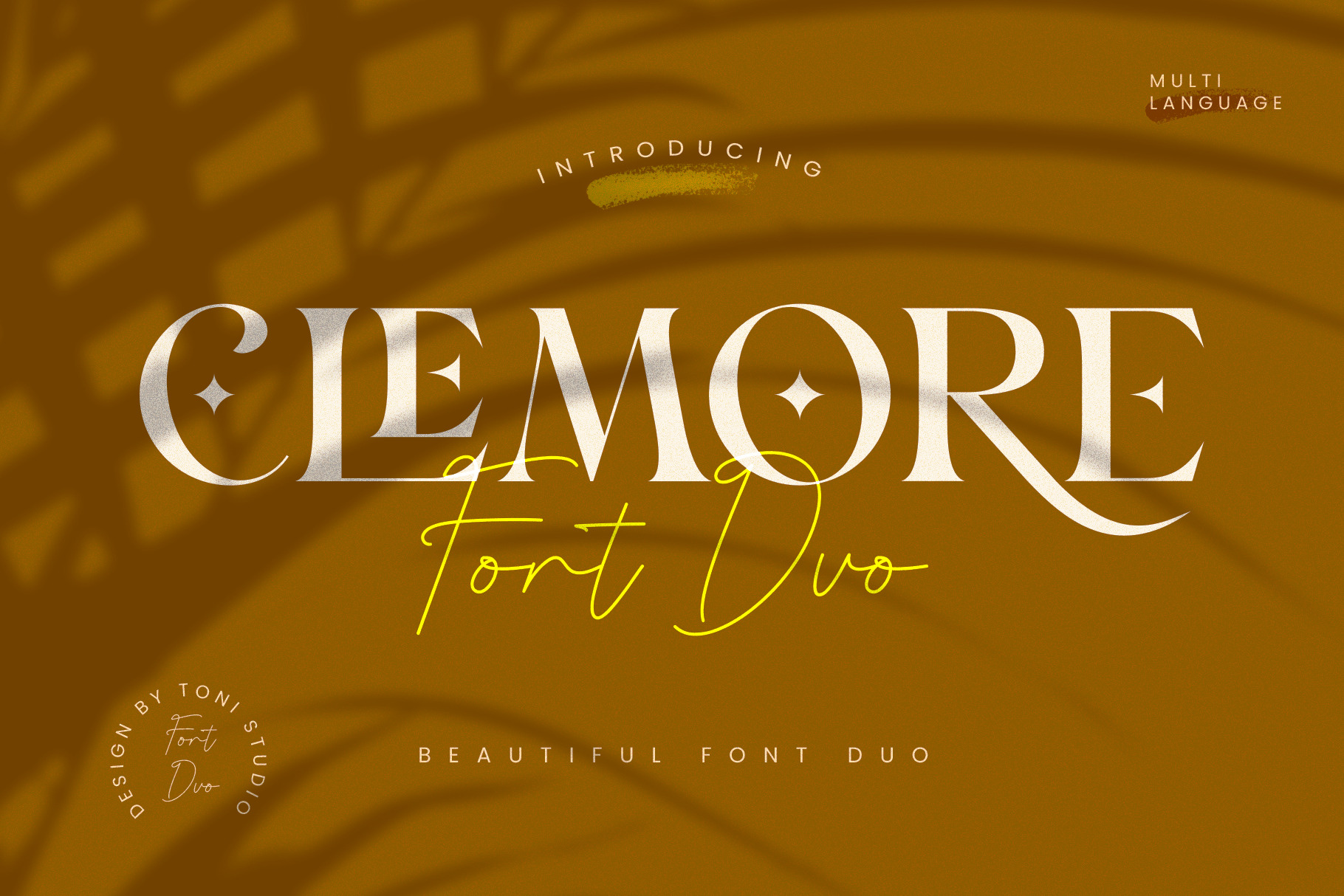
Clemore font duo
Clemore Font Duo is a modern and elegant typeface with a signature script font, Clemore Font Duo comes with clean lines and smooth curves perfect for stunning logos, wedding designs, quotes, display text and anything else you want to get. perfect result for your project!